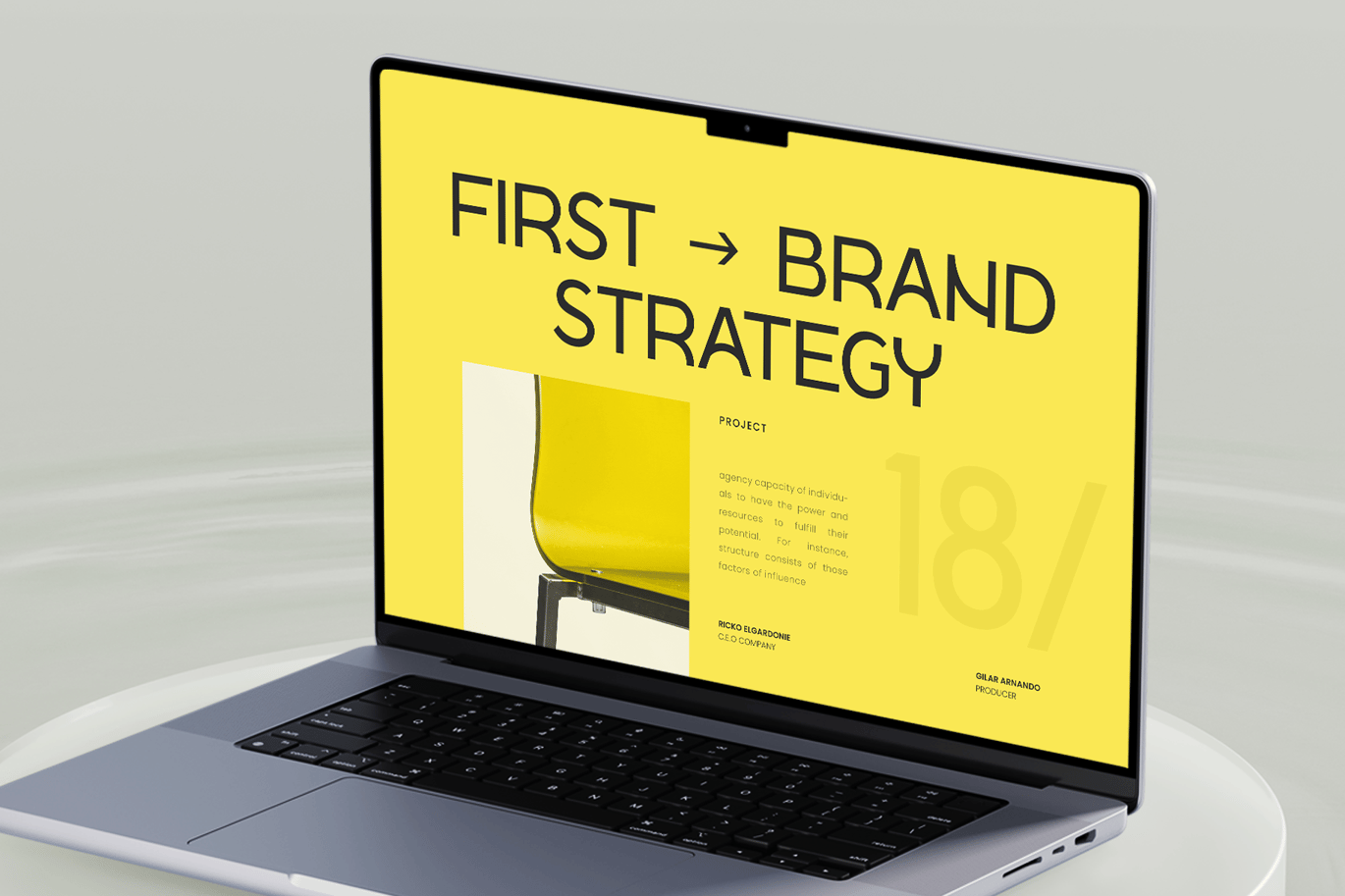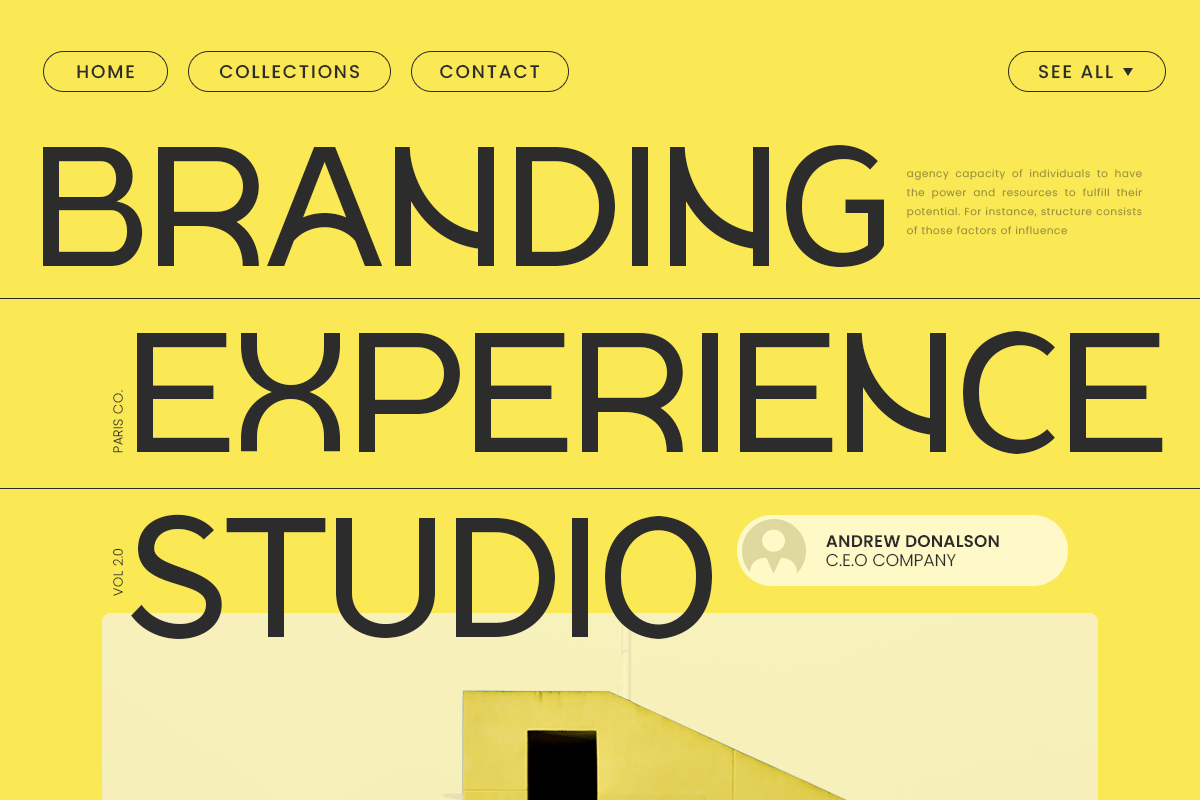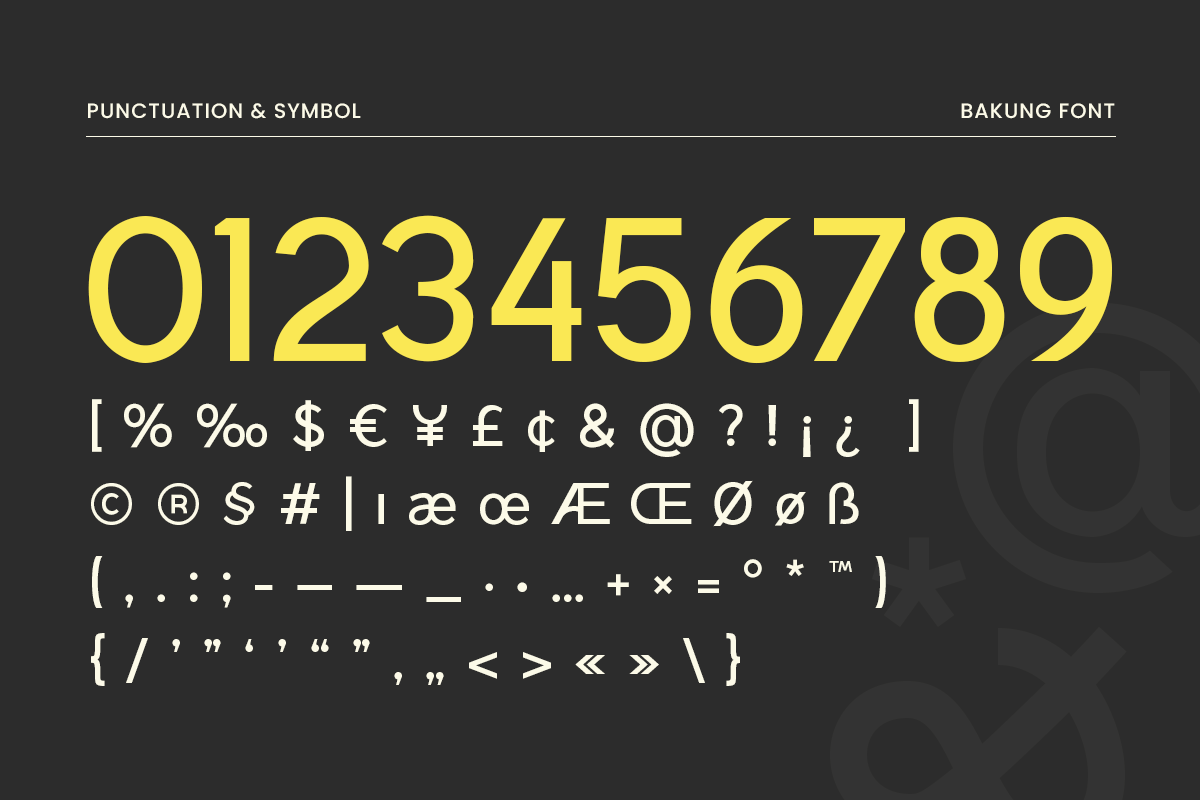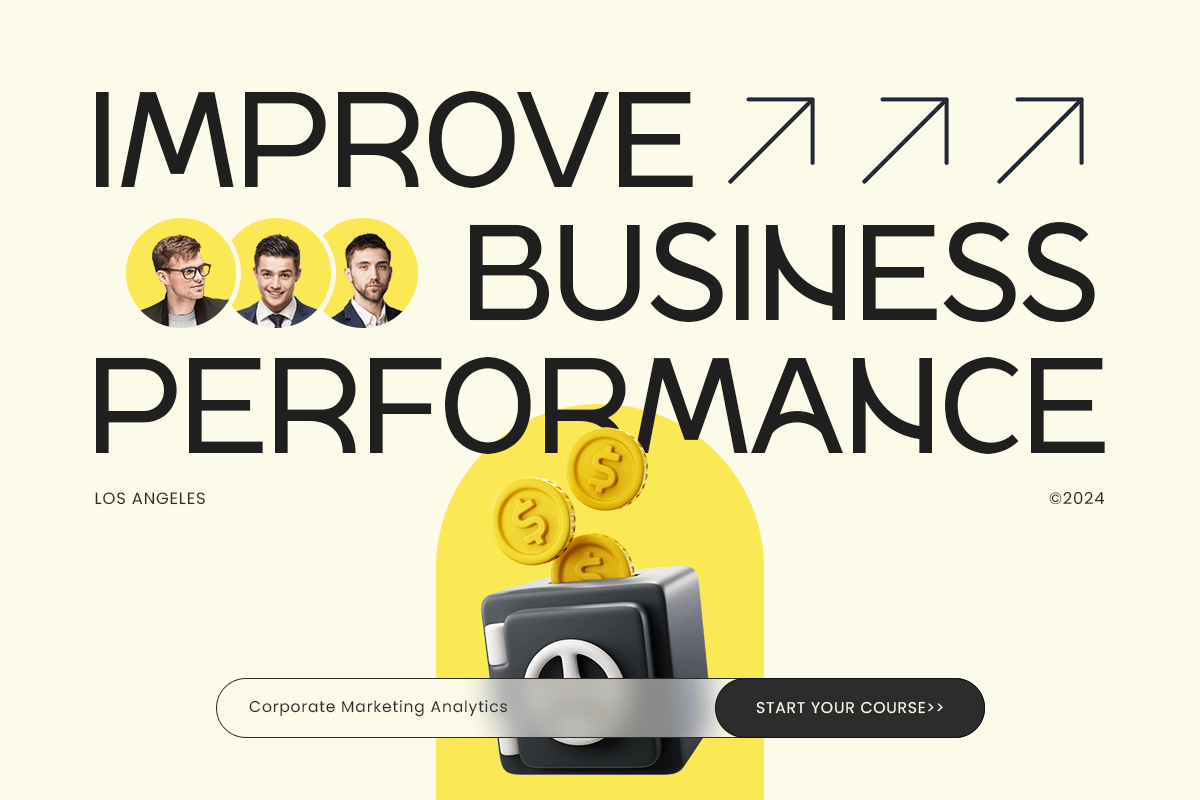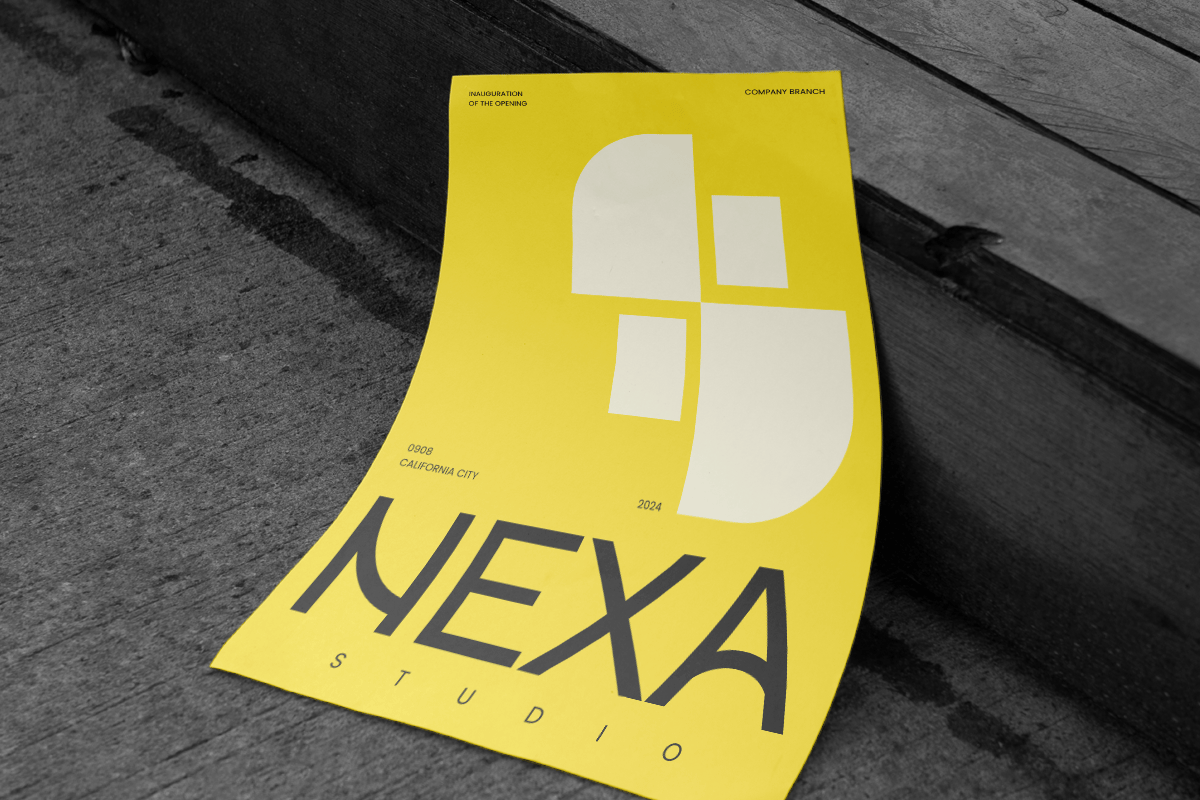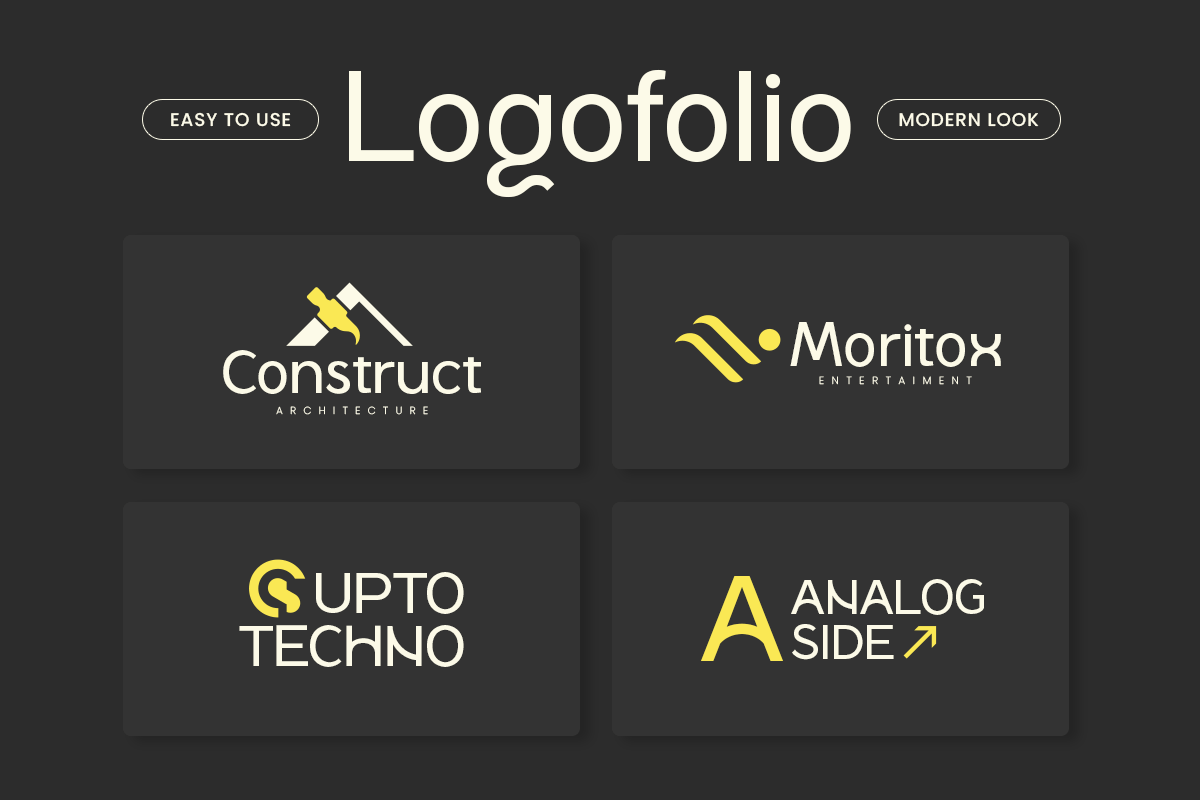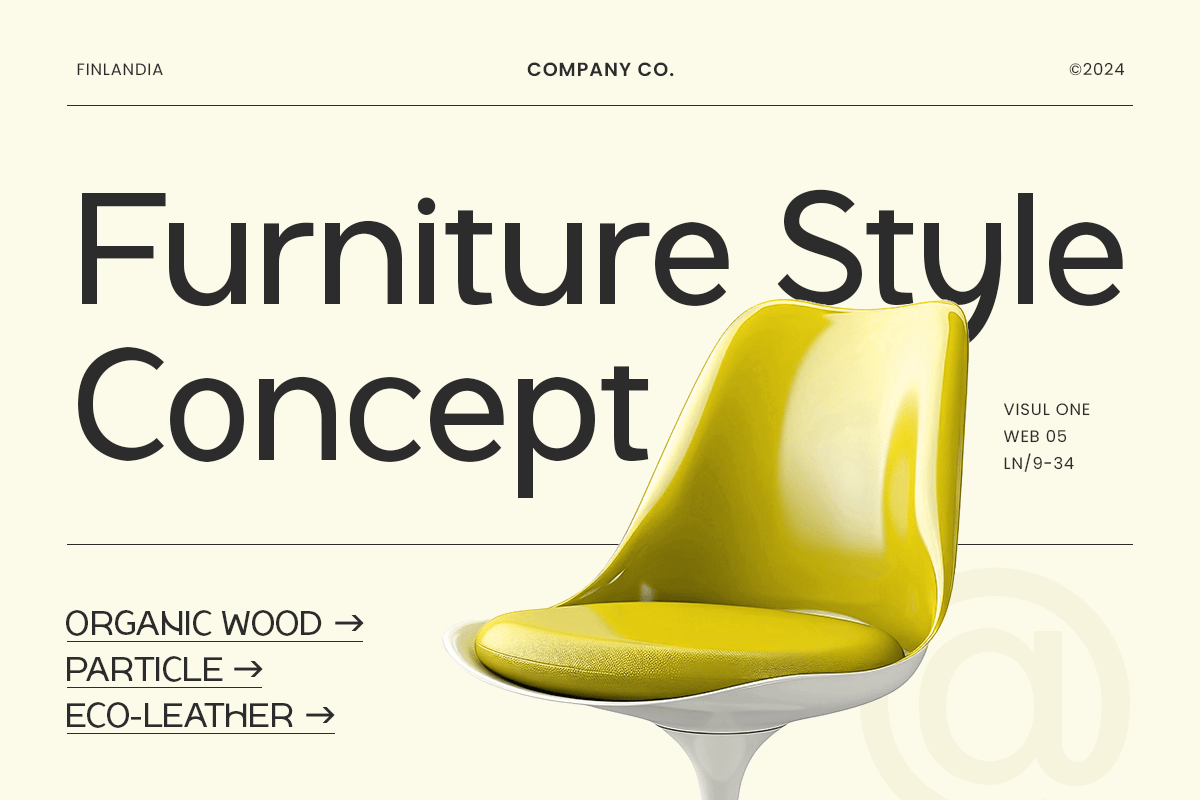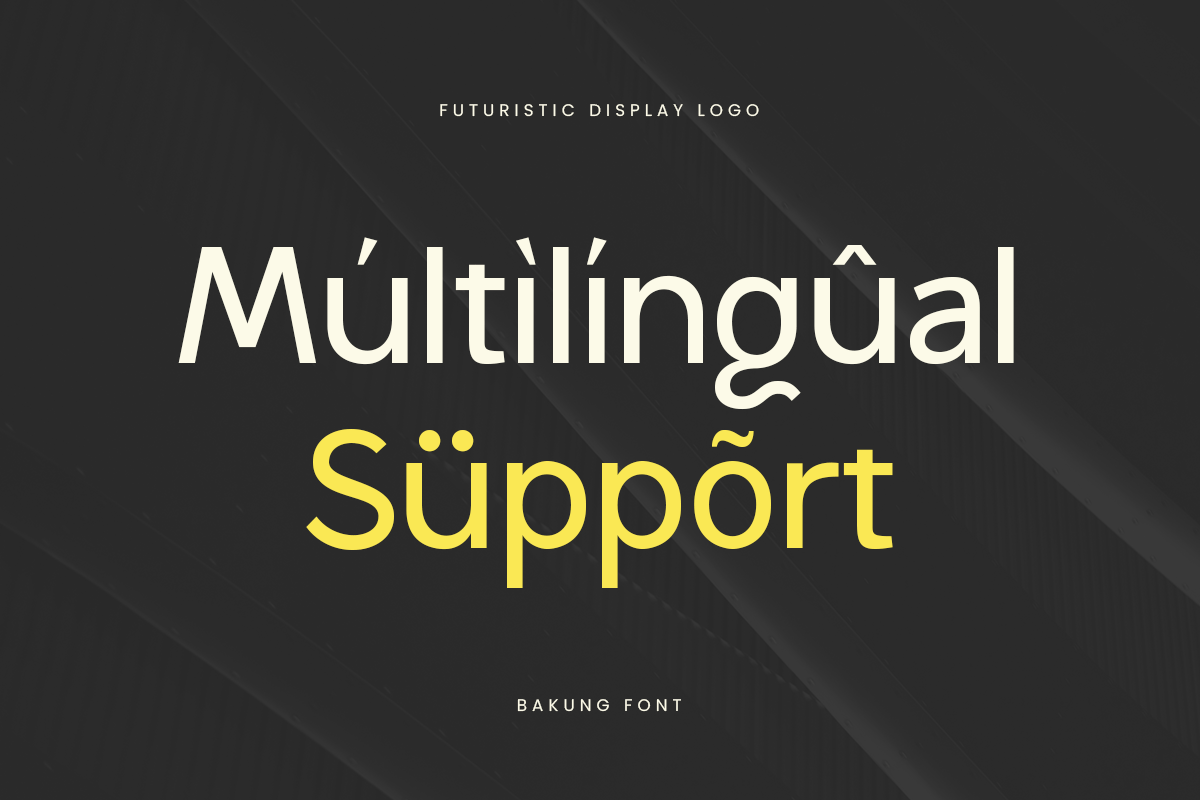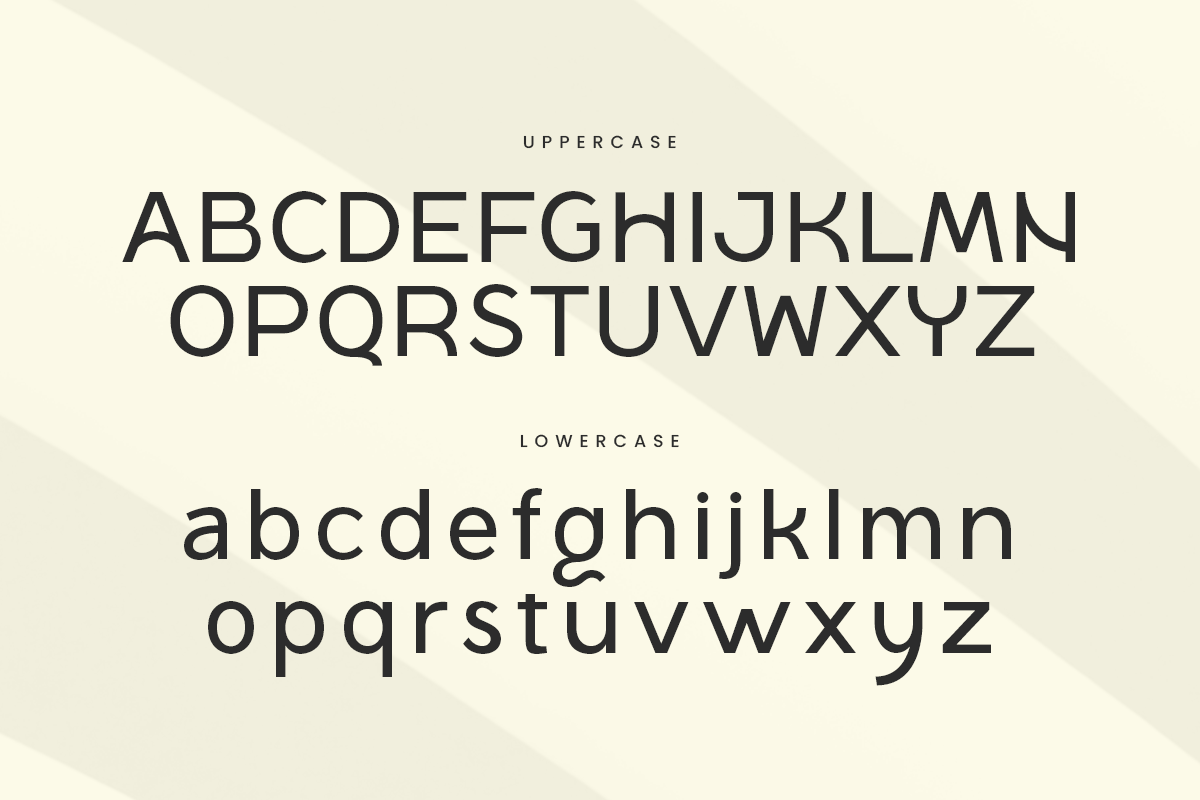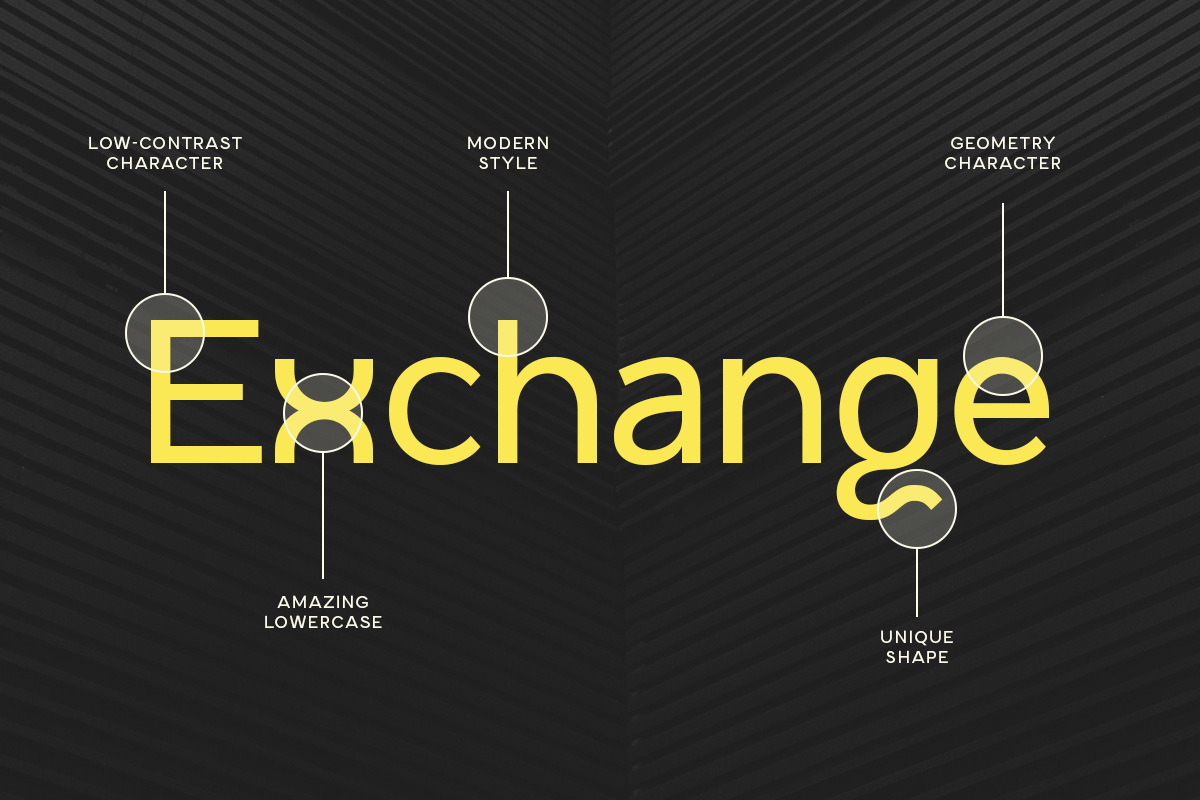
Bakung – Modern Branding Logo Font
Introducing Bakung, a font designed to make a statement. Combining modern aesthetics with bold, eye-catching design, Bakung is perfect for creating logos and display texts that stand out from the crowd.
The Story Behind Bakung:
Bakung was born out of a desire to create a font that captures attention and leaves a lasting impression. Inspired by the clean lines and striking visuals of modern design, each character in Bakung is meticulously crafted to ensure boldness and clarity. This font is perfect for designers looking to add a unique and contemporary touch to their projects.
Bakung Font Features:
- Bold Design: Striking and attention-grabbing, ideal for display and logo use.
- Modern Aesthetics: Clean lines and stylish curves that reflect contemporary design trends.
- Versatile Usage: Perfect for logos, posters, headlines, and graphic design projects.
- High Impact: Clear and readable, ensuring your message stands out.
- Unique Character: Distinctive letterforms that add personality to your designs.
- Inspirational Previews: Includes sample designs to spark your creativity.
Perfect For:
- Logo Design: Create bold and memorable logos for brands and businesses.
- Posters and Headlines: Design eye-catching posters and headlines that demand attention.
- Graphic Design: Add a unique and modern touch to your graphic design projects.
- Branding: Develop distinctive branding materials that stand out in the market.
With Bakung, your designs will capture attention and make a bold statement. Whether you’re creating logos, posters, or any other display text, Bakung provides the perfect blend of modern design and unique style. Make your mark with Bakung and let your creativity shine.